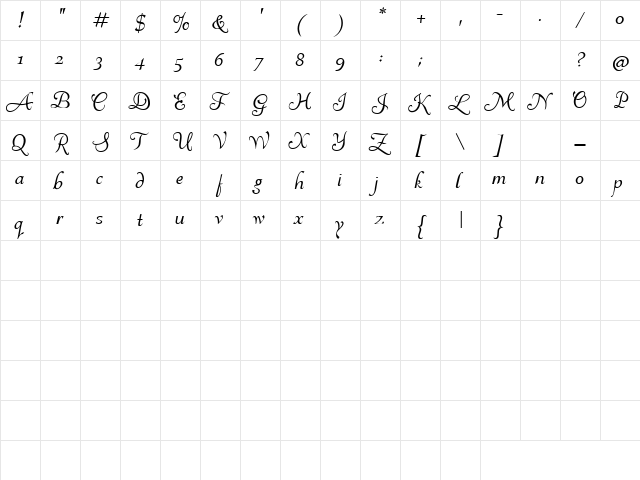
AL Heavenly Regular
Design Context for AL Heavenly Typeface
AL Heavenly is a composed and adaptable typeface that performs quietly and consistently across a wide range of design contexts.